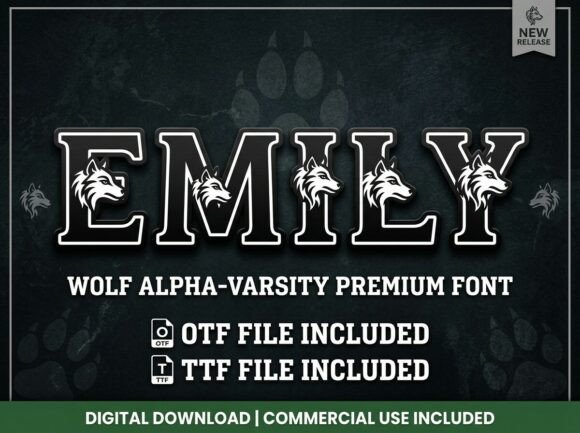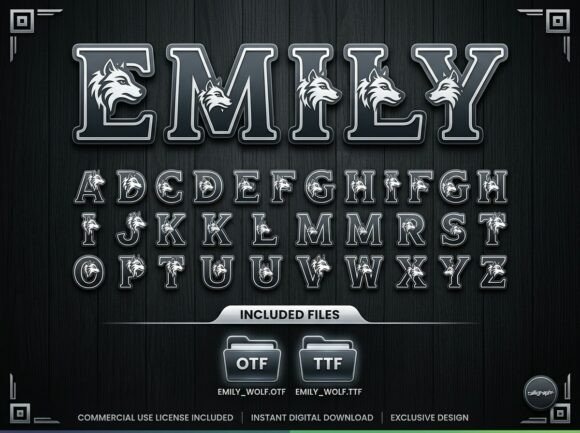
Introducing Emily Font: The Ultimate Display Font for Creative Designs
In the world of typography, a good font can make all the difference in creating a lasting impression. If you’re a designer, craftsperson, or simply a creative individual looking to elevate your visual projects, look no further than Emily Font. This stunning decorative display font is designed to be the center of attention, featuring unique artistic elements and a strong visual personality that sets it apart from the ordinary.
Emily Font is perfect for creators who want to break away from the crowd and make a statement with their designs. With its intricate details and creative letterforms, this font is ideal for high-impact designs where the typography needs to do the talking. Whether you’re designing a modern poster, a unique brand identity, or eye-catching social media content, Emily Font adds an instant “wow” factor to any project.
One of the standout features of Emily Font is its versatility. This font is suitable for a wide range of design applications, from bold headlines and artistic logos to creative packaging and more. Its professional and polished finish ensures that your designs always look refined and sophisticated, making it perfect for:
- Poster Design: Create headlines that people can’t look away from. Emily Font’s unique and artistic elements make it perfect for posters that need to grab attention and leave a lasting impression.
- Branding & Logos: Build a unique identity for creative businesses. With its strong visual personality, Emily Font is ideal for logos and branding materials that need to stand out in a crowded market.
- Apparel & Merch: Perfect for T-shirts, hoodies, and tote bag designs. Emily Font’s creative letterforms and intricate details make it a great choice for apparel and merchandise designs that need to make a statement.
- Social Media: Make your quotes and announcements stand out in the feed. With Emily Font, you can create eye-catching social media content that grabs attention and encourages engagement.
- Packaging: Give your products a premium feel with Emily Font’s elegant and sophisticated design. Perfect for product packaging that needs to stand out on store shelves.
Why Choose Emily Font?
So, why should you choose Emily Font for your design projects? Here are just a few reasons:
- Unique and Artistic: Emily Font features unique artistic elements and creative letterforms that set it apart from other fonts.
- High-Impact Designs: This font is perfect for high-impact designs where the typography needs to do the talking.
- Versatile: Emily Font is suitable for a wide range of design applications, from posters and logos to social media content and packaging.
- Professional and Polished: This font maintains a professional and polished finish, ensuring that your designs always look refined and sophisticated.
In conclusion, Emily Font is a stunning decorative display font that is perfect for creators who want to break away from the ordinary and make a statement with their designs. With its unique artistic elements, strong visual personality, and versatility, this font is ideal for a wide range of design applications. Whether you’re a designer, craftsperson, or simply a creative individual, Emily Font is a great choice for any project that needs to make a lasting impression.